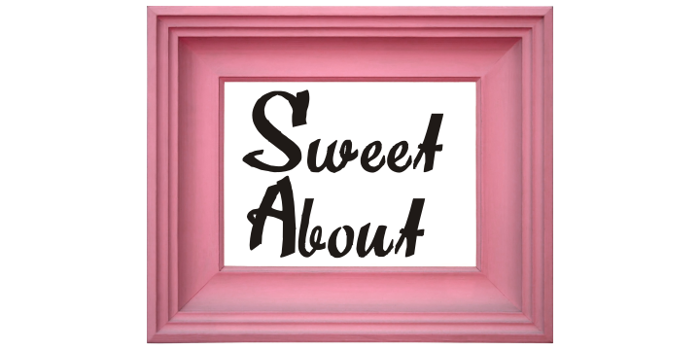
Sweet About Font
I love this one! It is amazing - a handwritten script that is easy to read, neat, and very pretty. I will be using this one a lot! Thank you for sharing all of your fonts for us to use... it is most appreciated.